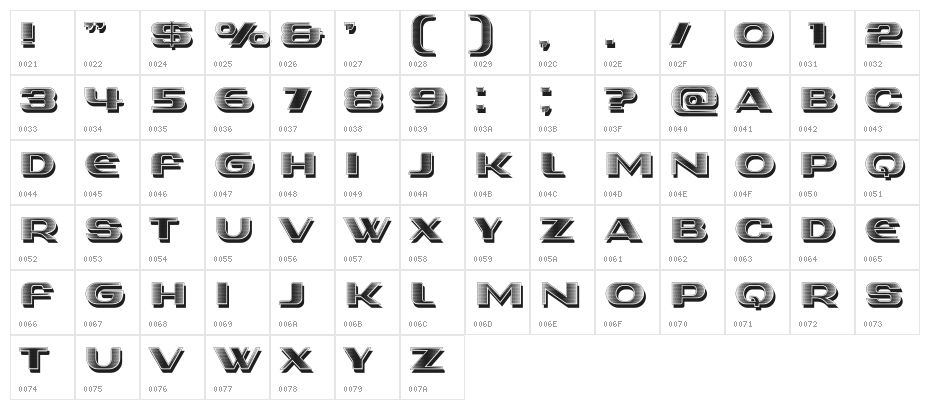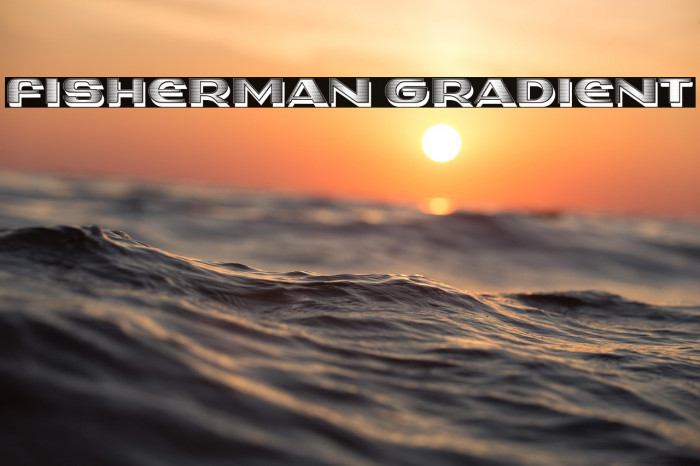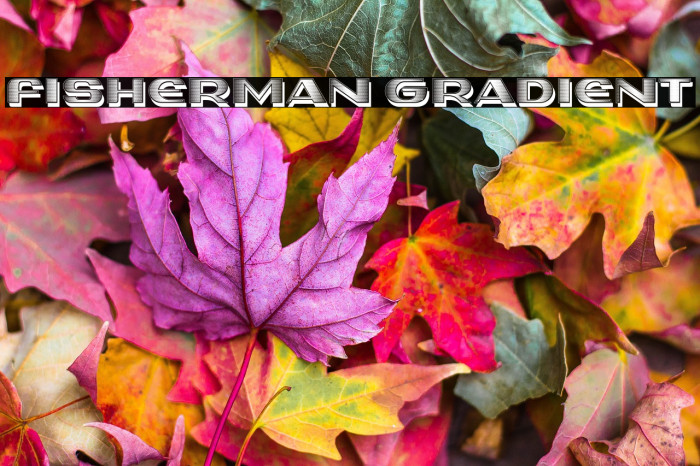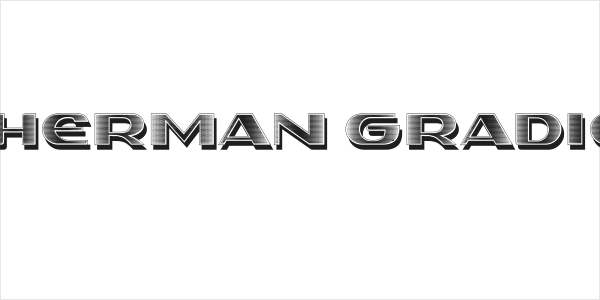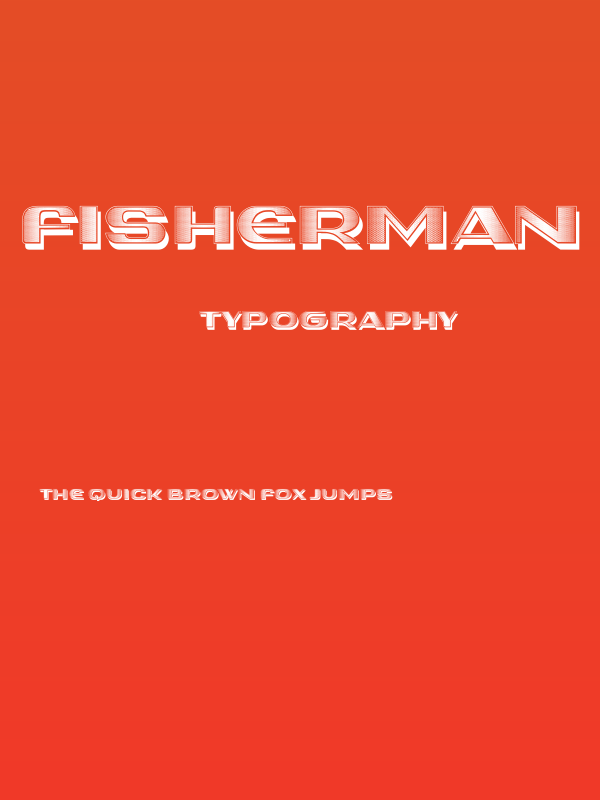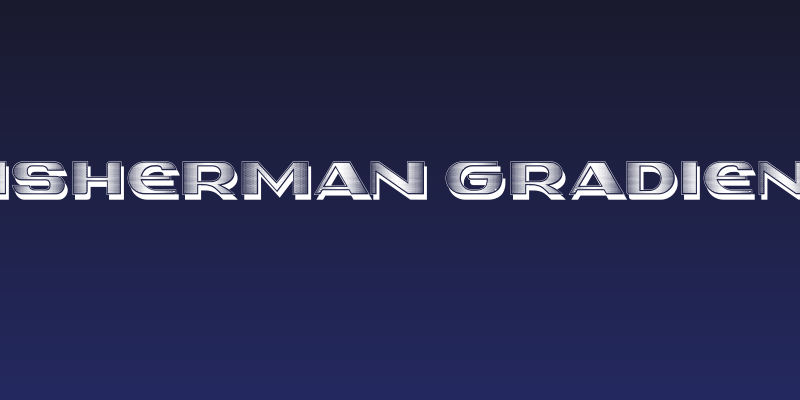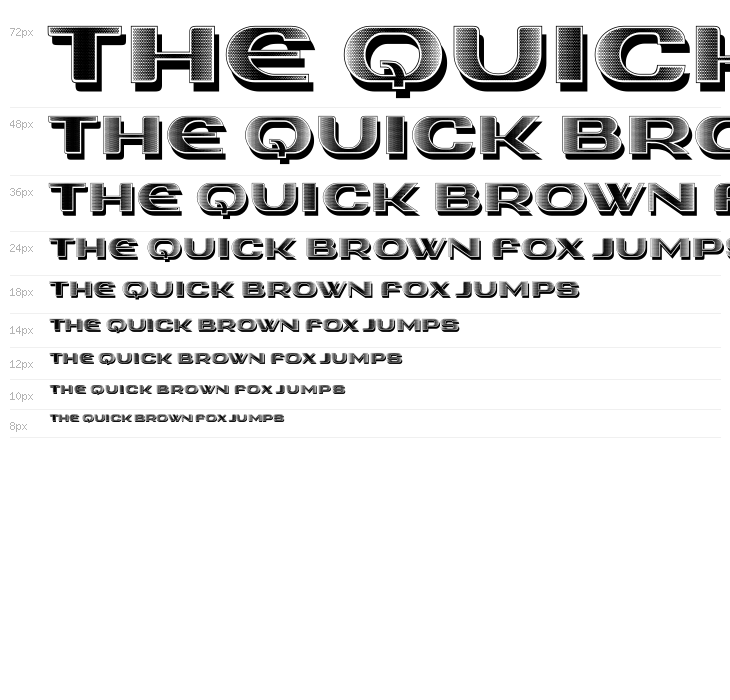
Fisherman Gradient Font
Fisherman Gradient Description
This font features a bold, three-dimensional appearance with a gradient effect that gives it a metallic and futuristic look. The characters are wide and have a strong presence, making them ideal for attention-grabbing designs. The uppercase letters are uniform in height, with sharp angles and clean lines that enhance the modern aesthetic. The numbers and special characters maintain the same bold style, ensuring consistency across all elements. The gradient effect adds depth and a sense of movement, making the font suitable for dynamic and impactful visual projects.
| Proposed Projects | Ideal for sci-fi themed posters, video game titles, technology branding, and futuristic advertisements. |